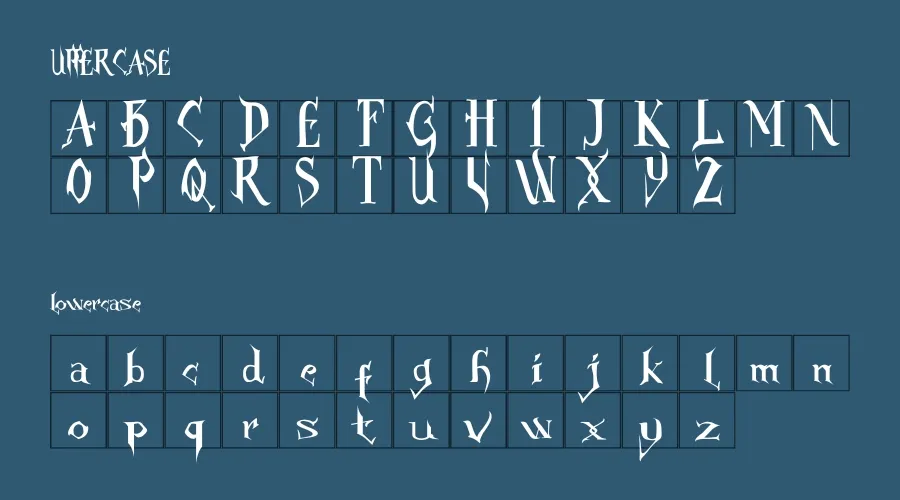
About Witch Font
Witch Font is an incredible creation by Black letter Studio, a type foundry run by creative typesetters with years of experience and a real passion for designing fonts With a strong focus on this type of typeface, this Fonts range contains a selection of truly eye-catching typefaces that are sure to catch the eye of any keen observer.
This font is a fancy typeface that has been carefully crafted to feel accessible, yet holds a certain level of mysticism and charm. Perfect for both personal and commercial projects, Witchy Fonts will help take your text to the next level. This typeface is available in both Regular and Bold weights, offering plenty of flexibility.